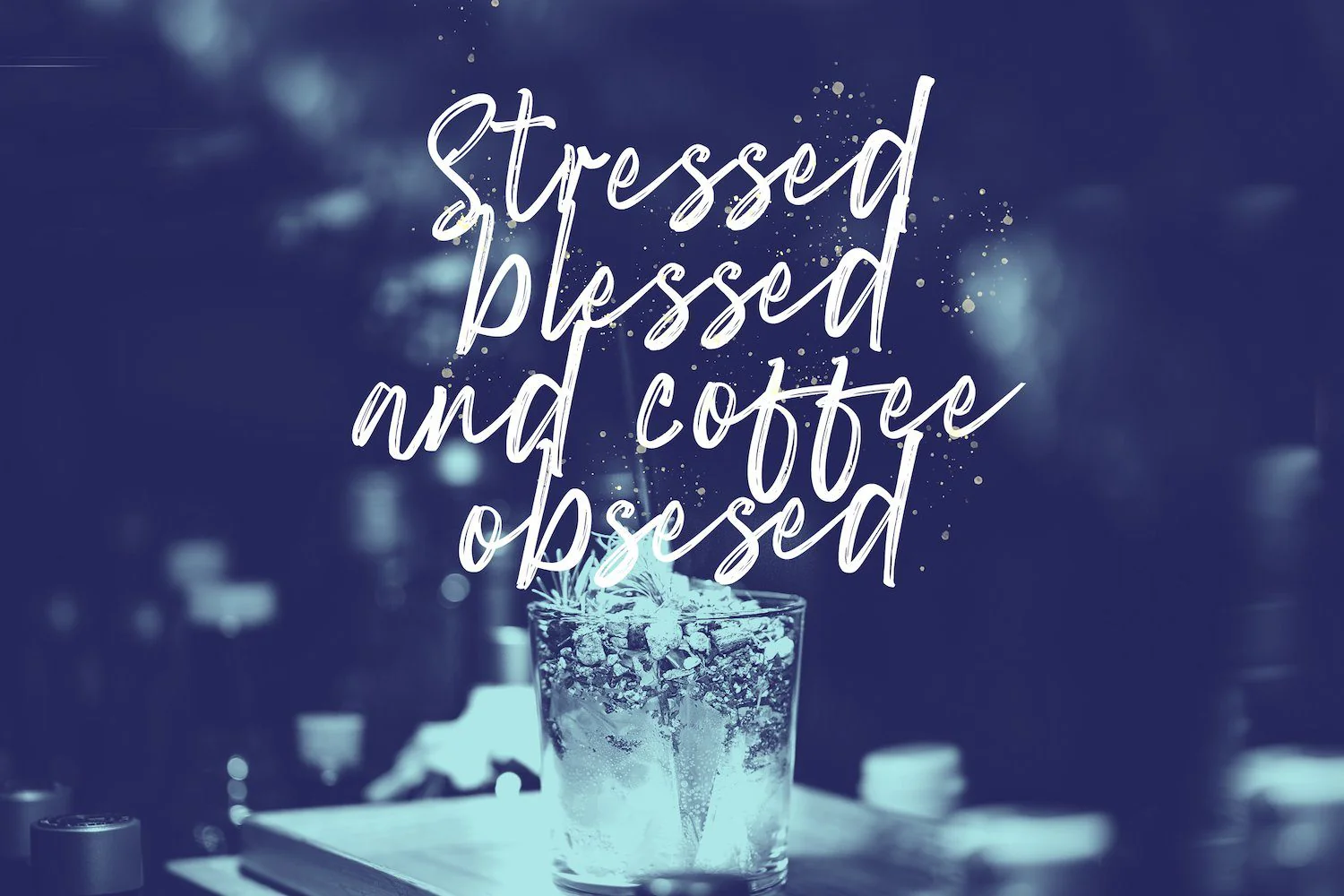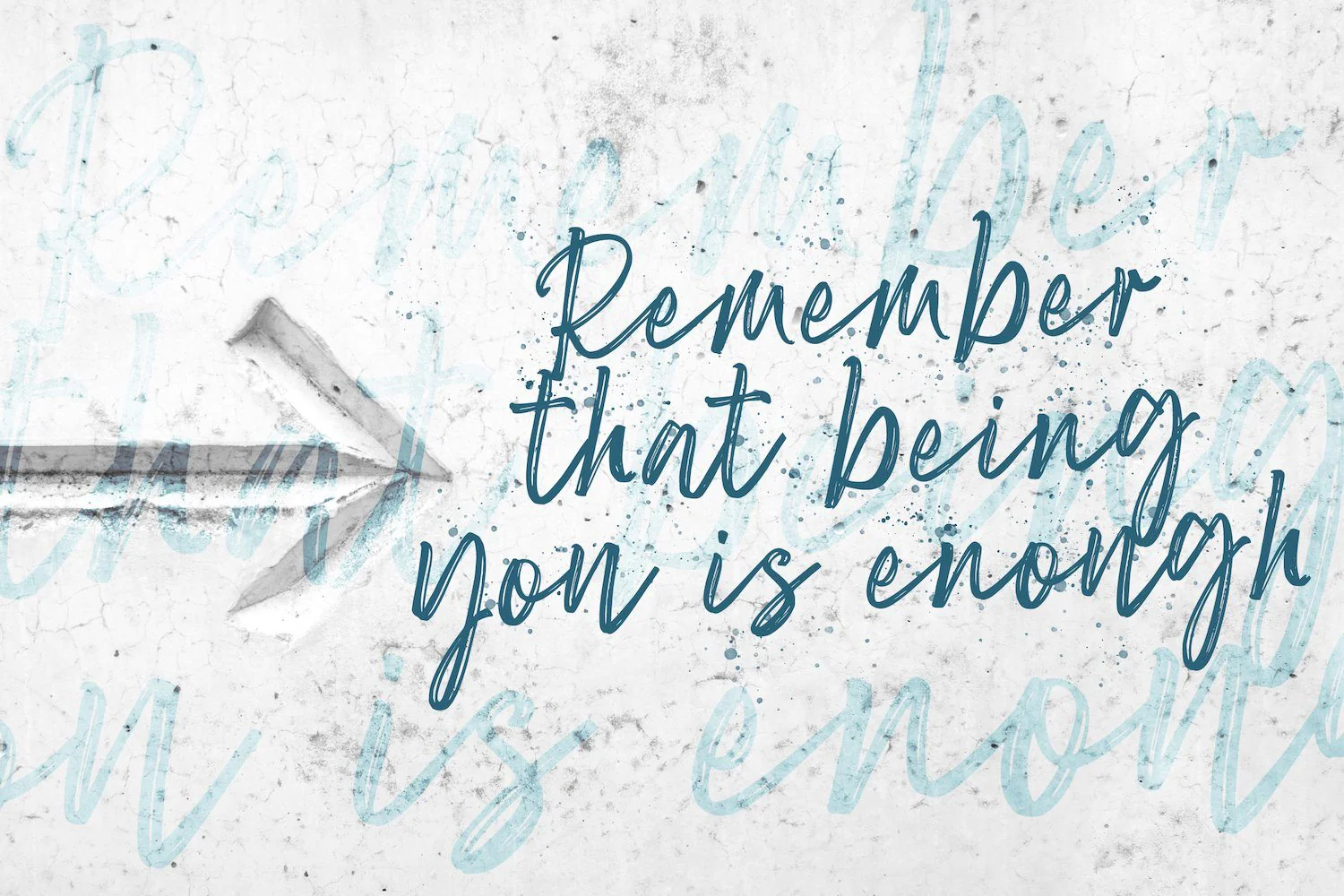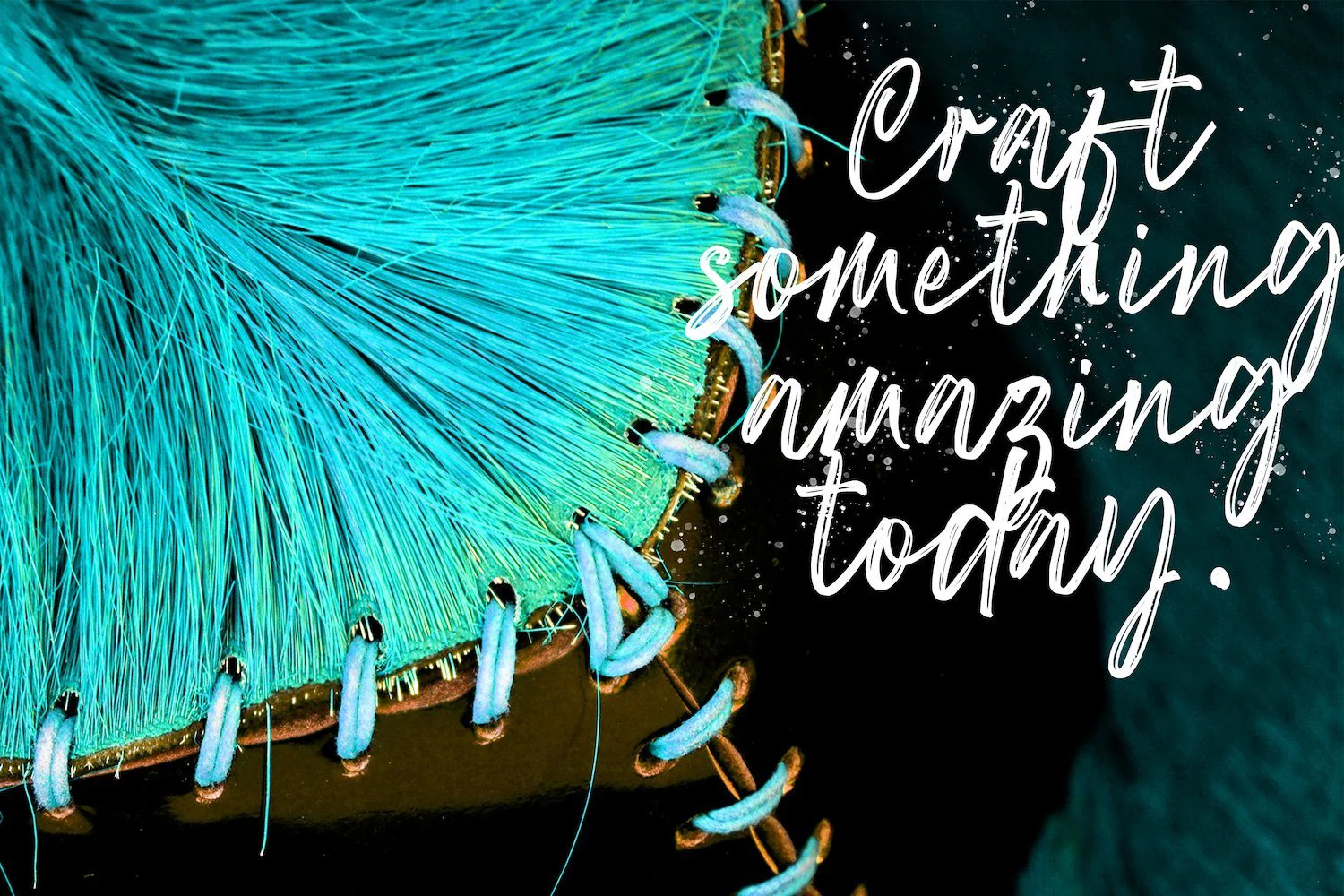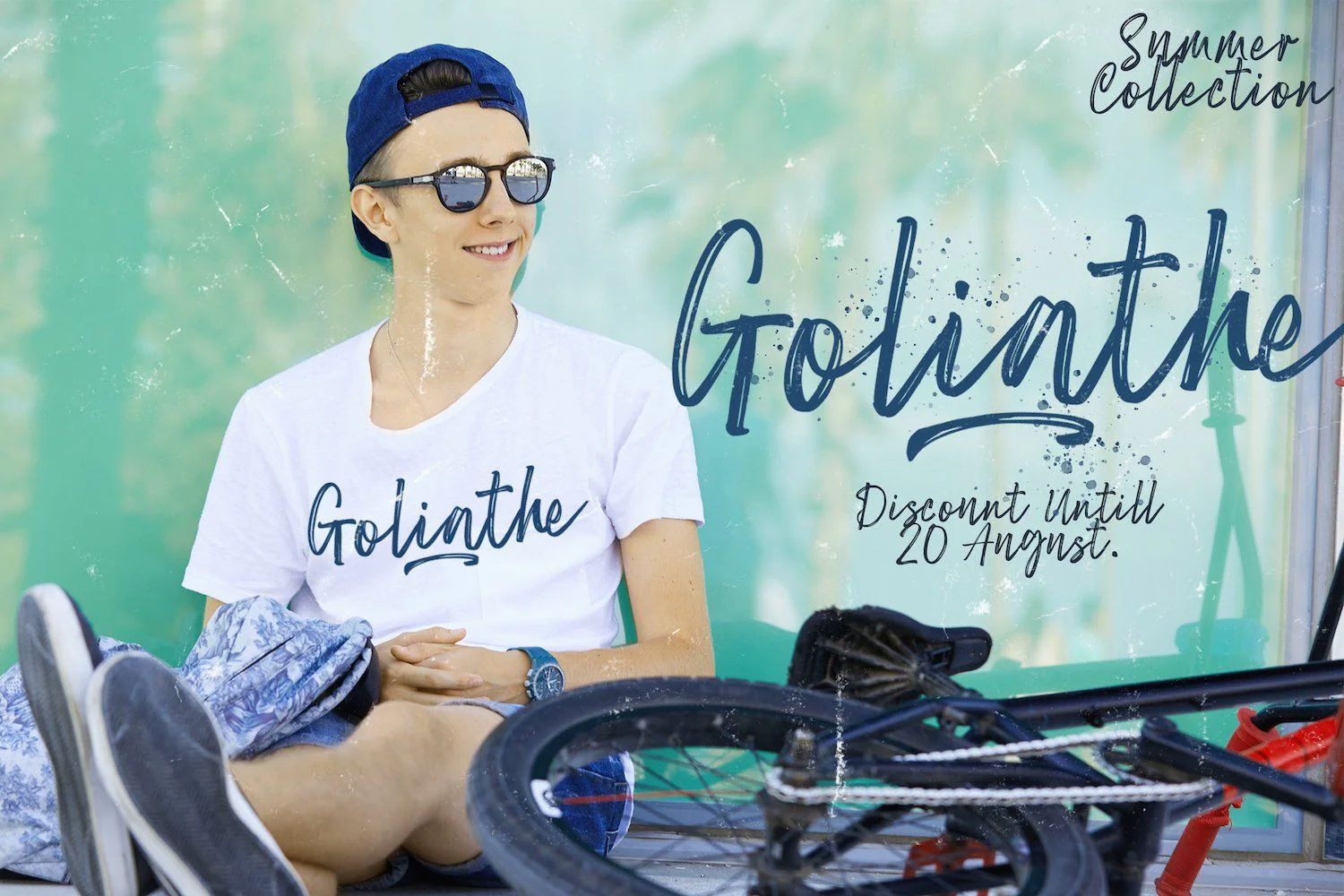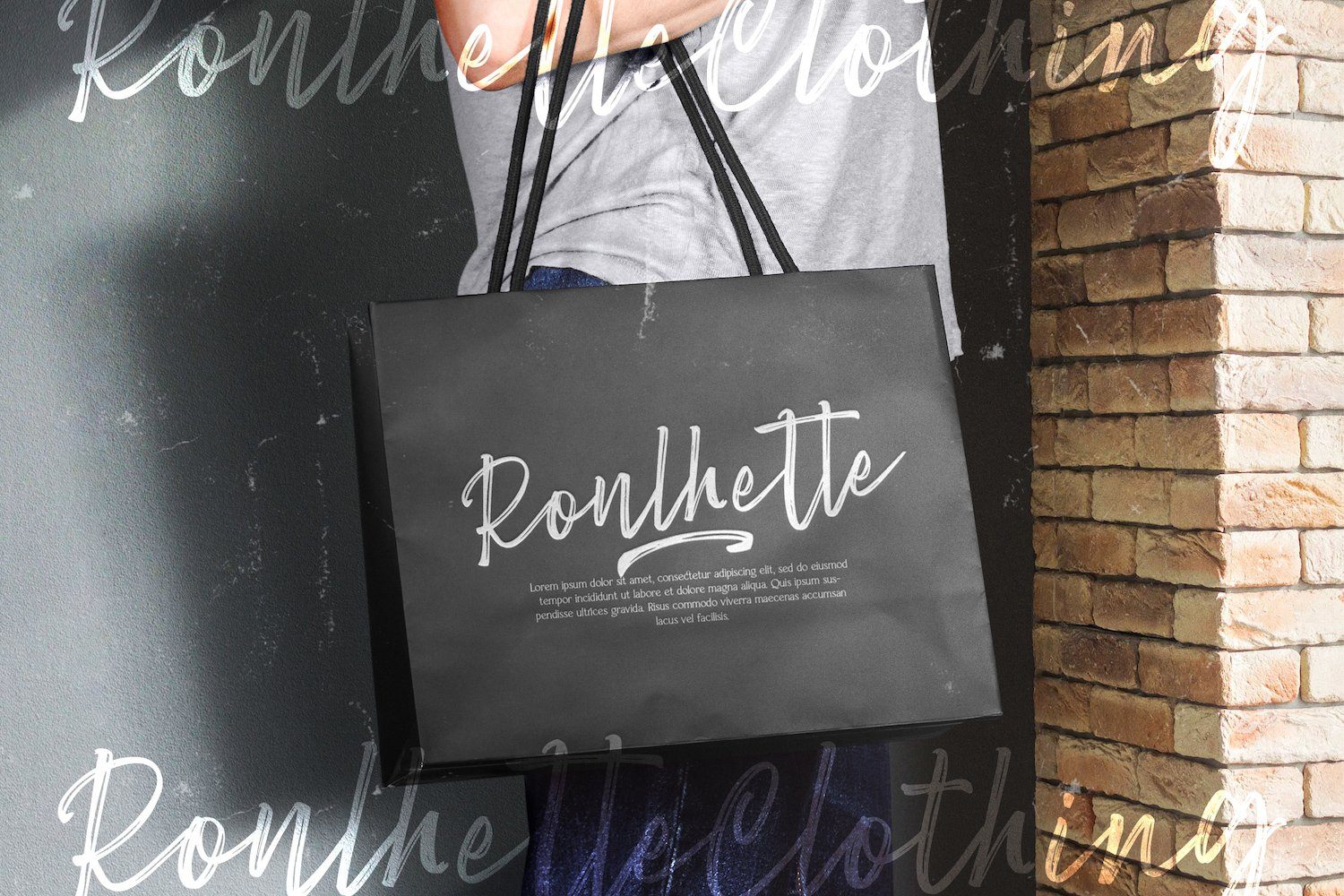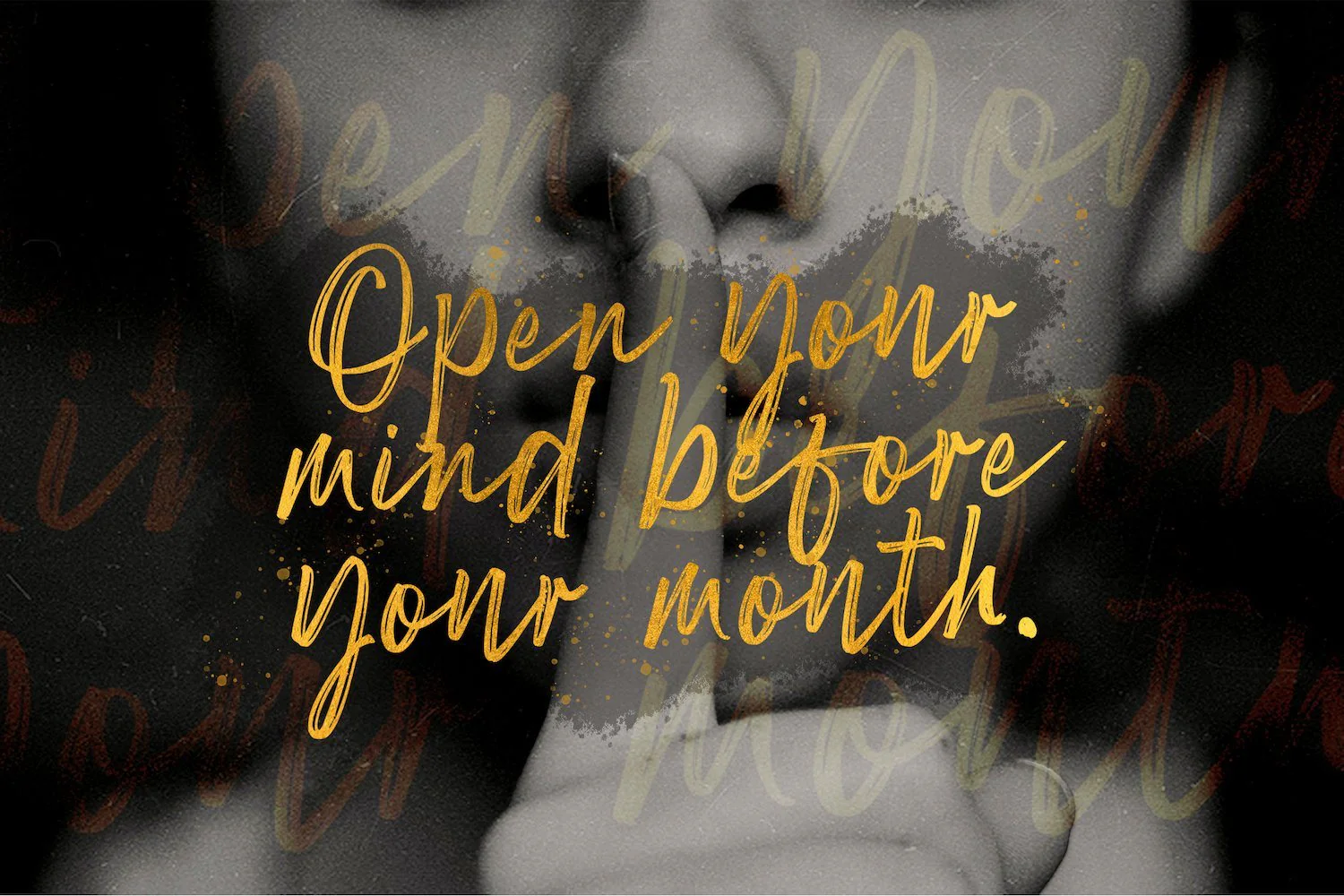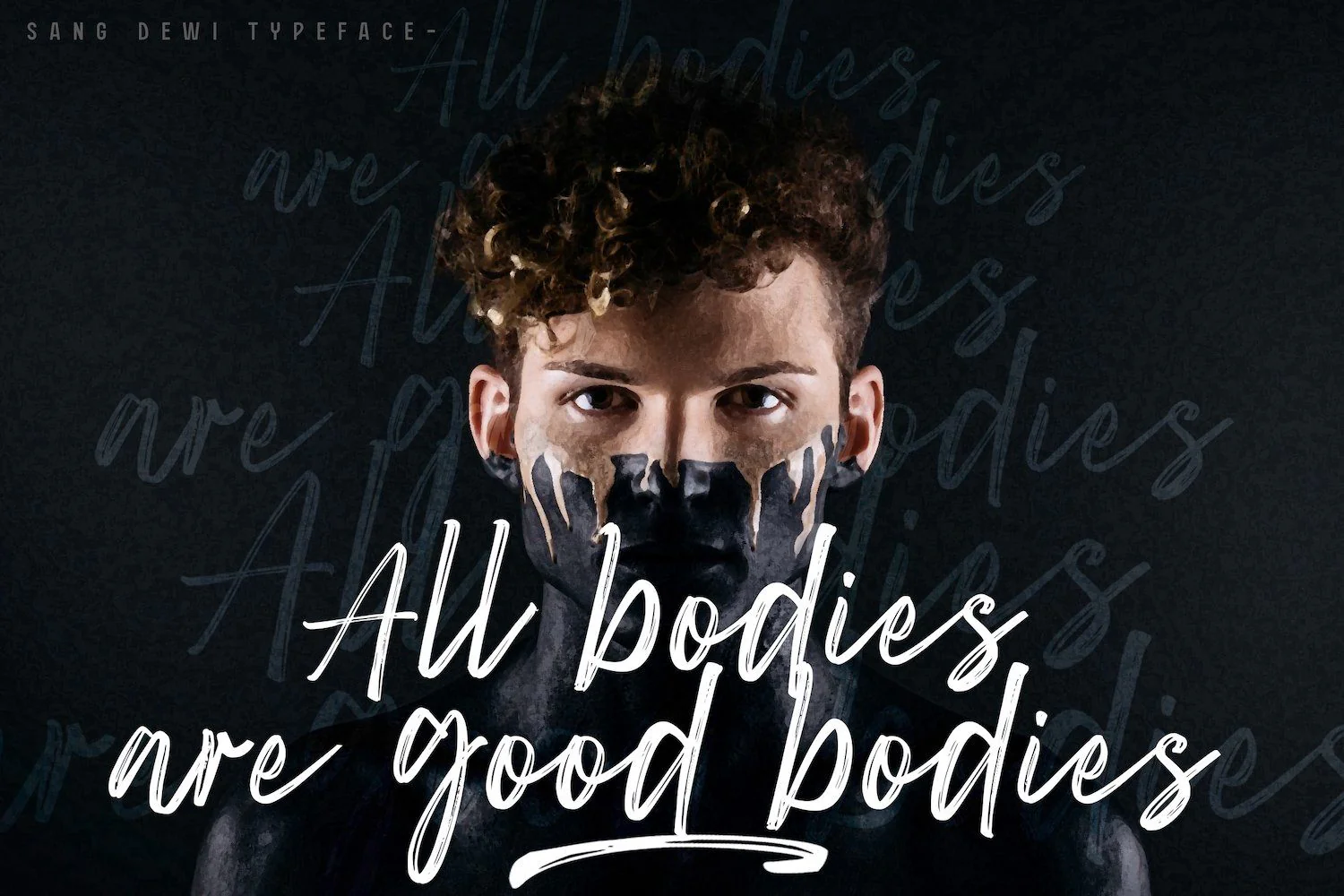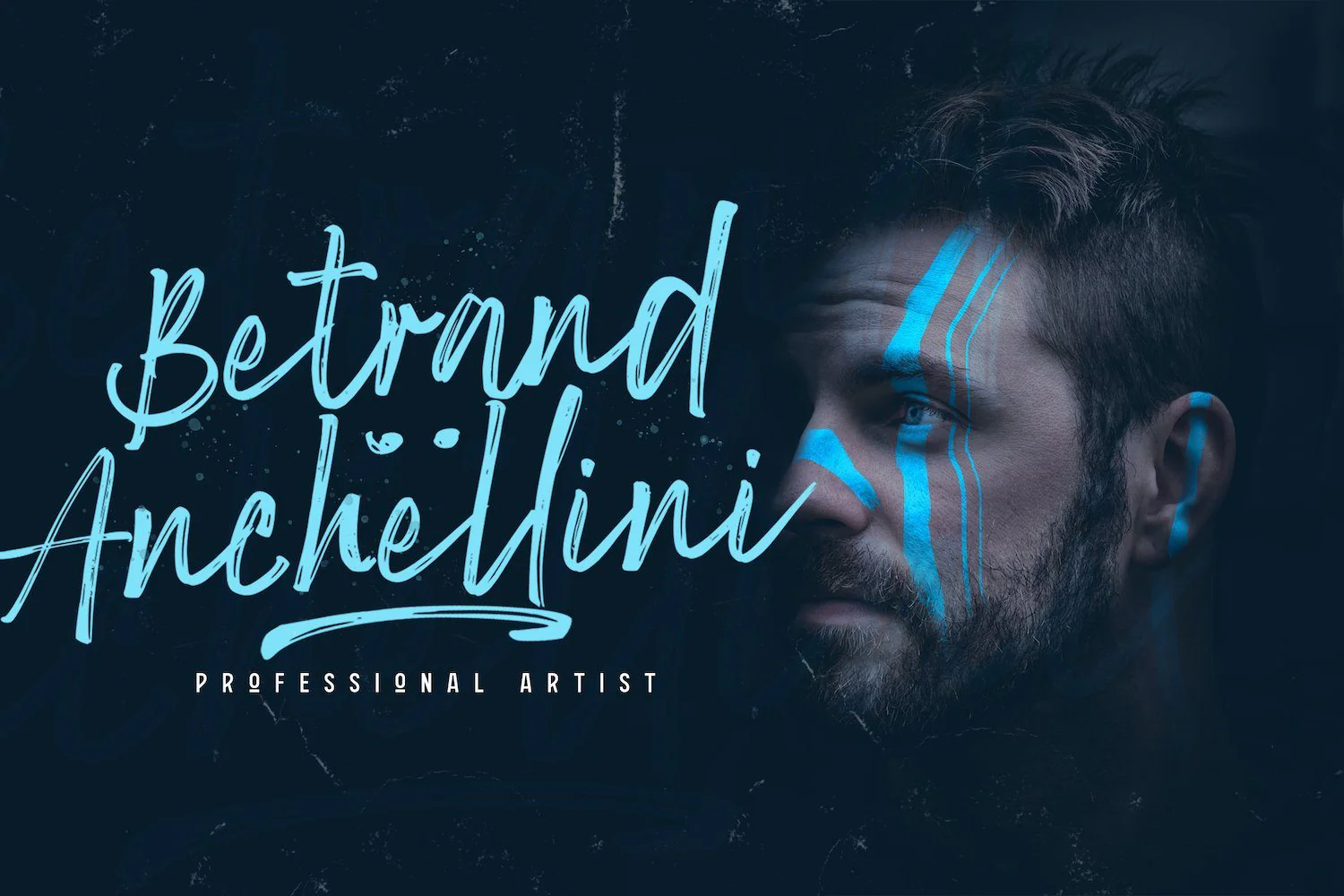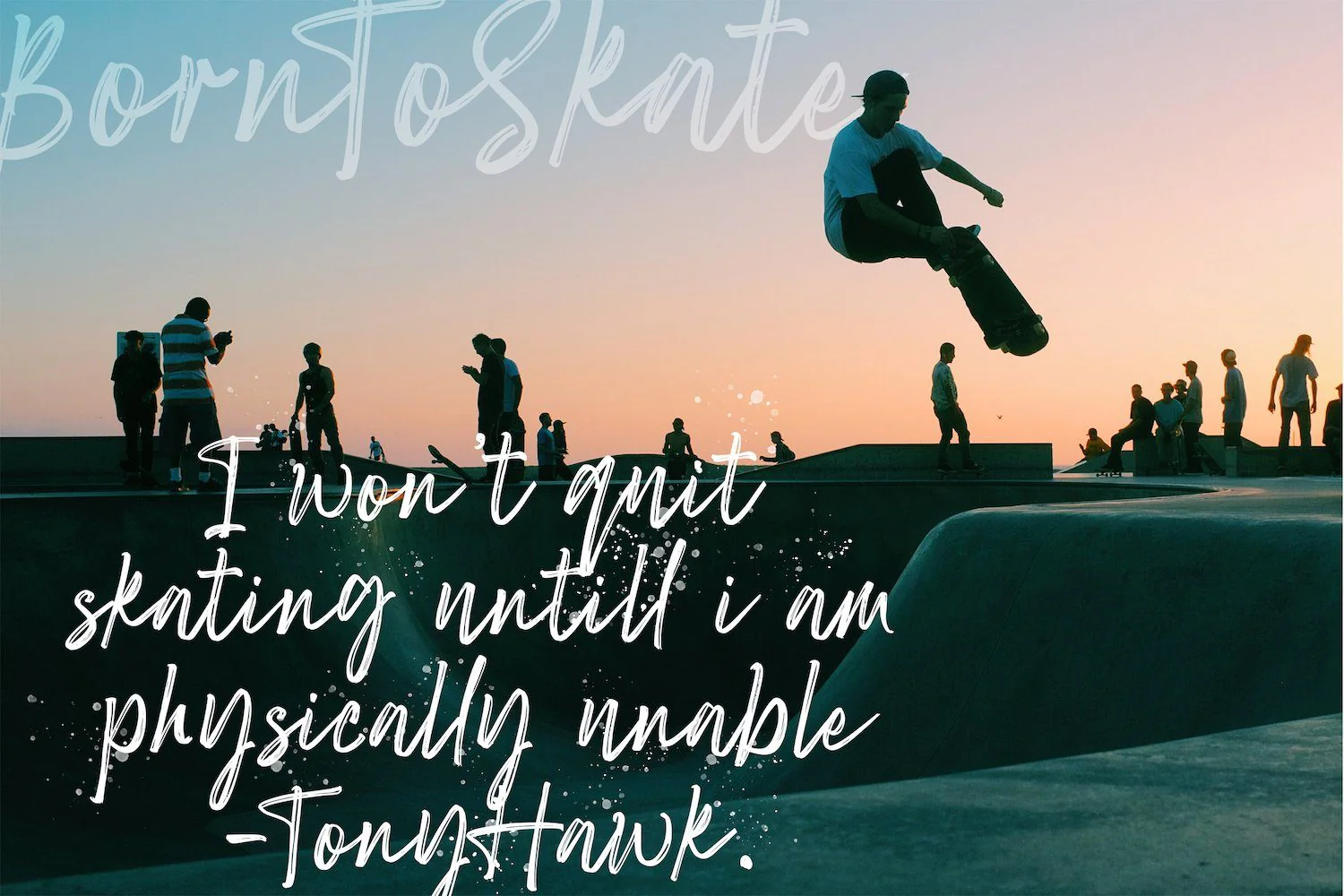
Sang Dewi - Handbrush Script Font
Introducing Sang Dewi - Handbrush Script Font
Sang Dewi is a flowing and elegant handwritten font, created with the help of a brush pen. Get inspired by its unique and dainty style and add it to your inspired creations!
Introducing Sang Dewi - Handbrush Script Font
Sang Dewi is a flowing and elegant handwritten font, created with the help of a brush pen. Get inspired by its unique and dainty style and add it to your inspired creations!